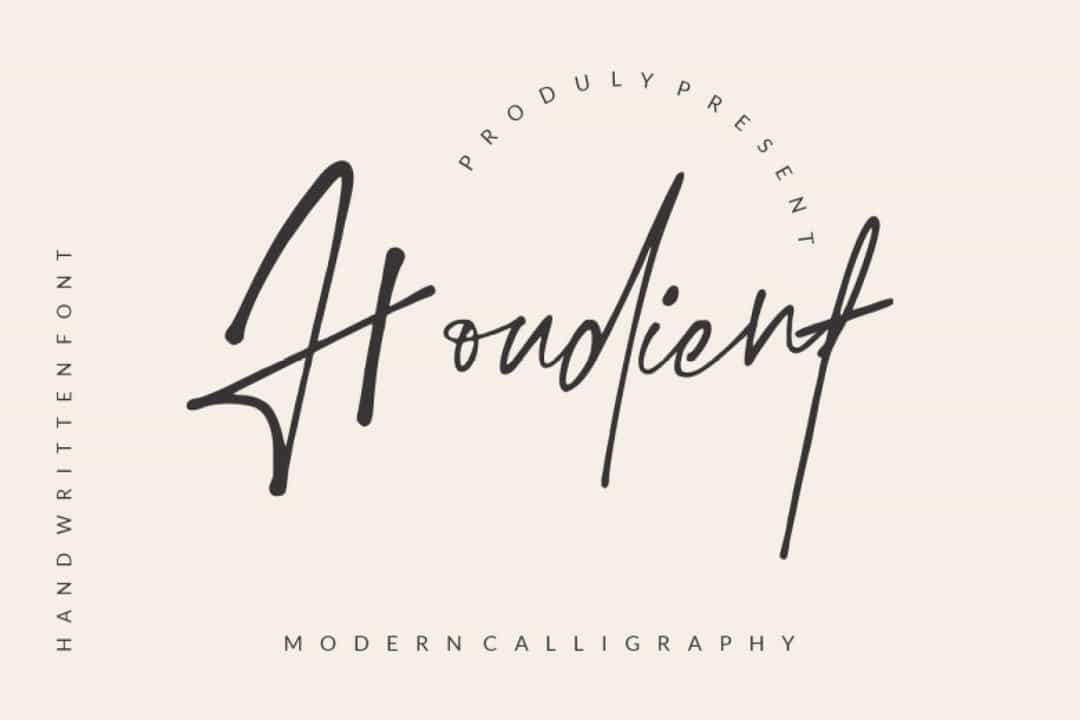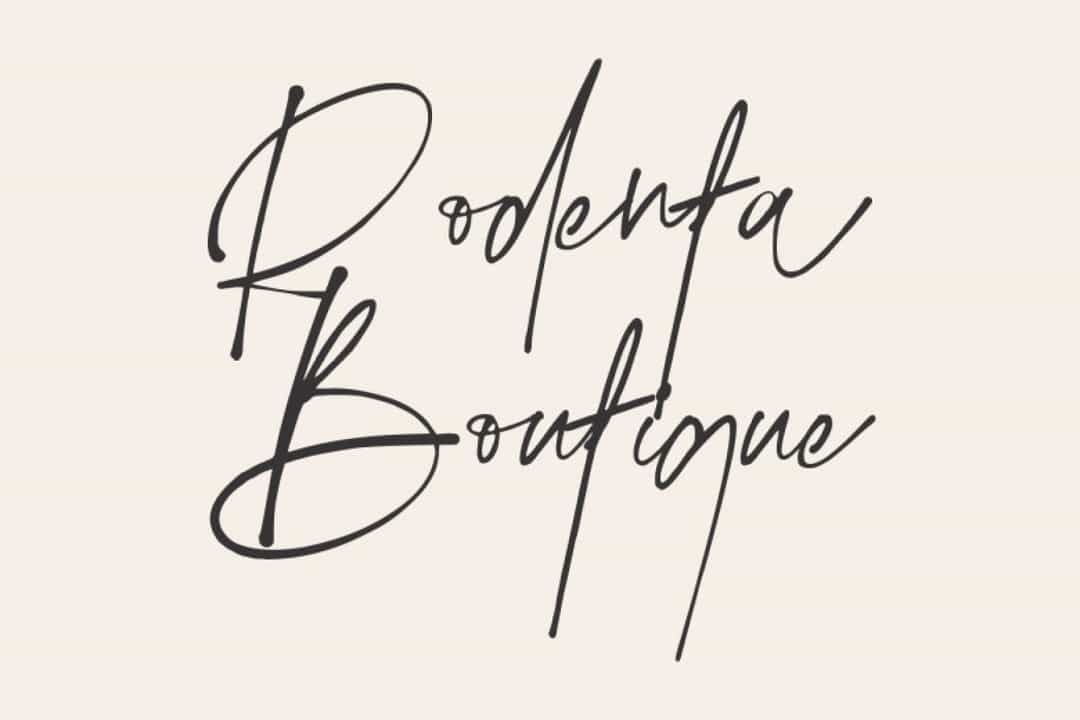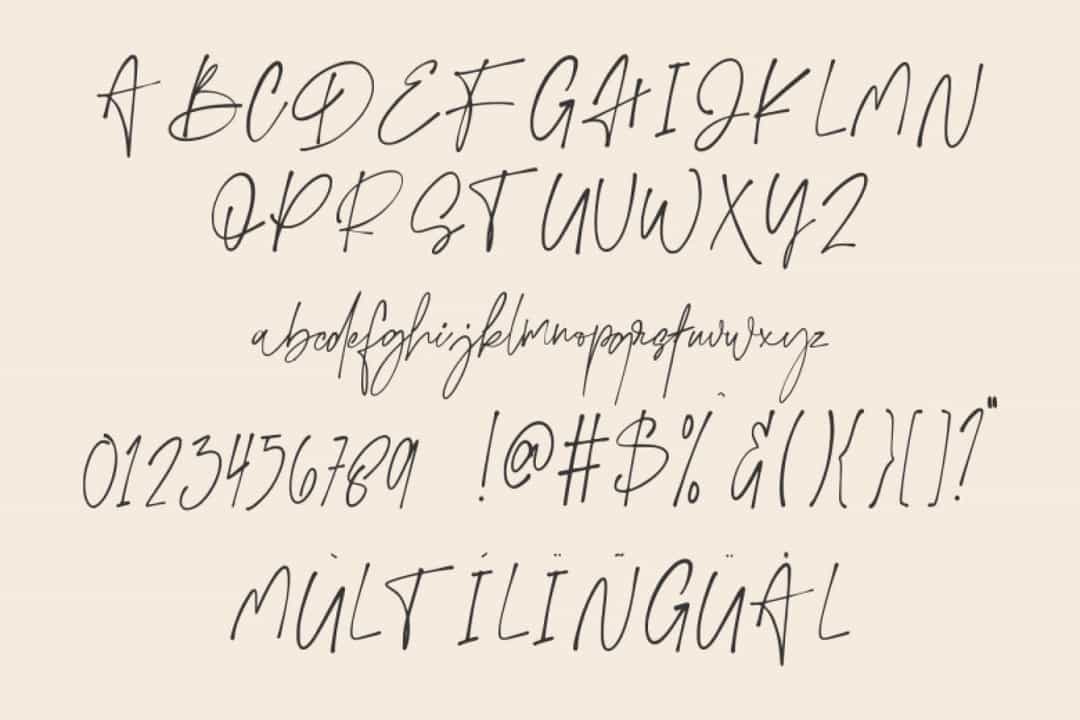
Houdient is an elegant handwritten script font designed with OpenType features for casual use in mind and comes equipped with punctuation marks, numbers and multilingual support for maximum versatility. I know you will enjoy every minute you spend using it!